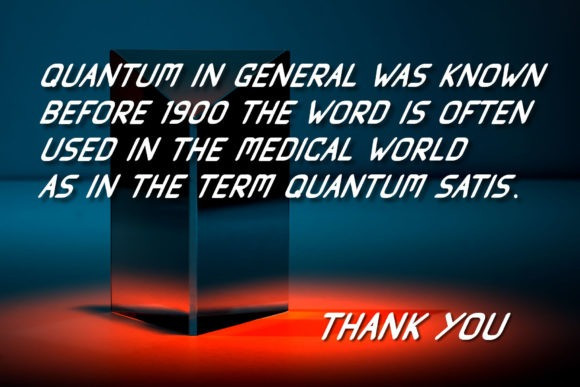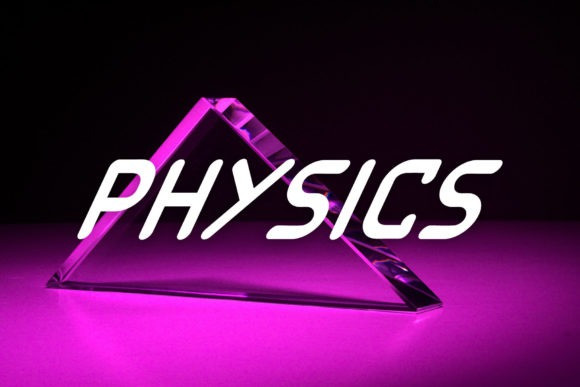
Quantum Typeface
Quantum Typeface is an awesome display font that will look stunning on any poster flyer or print. Use this font for your designs and explore its endless possibilities.